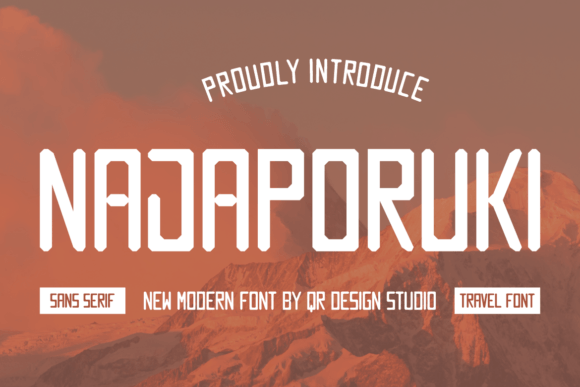
Immerse Yourself in the World of Najaporuki: A Font of Boldness and Authenticity
In the realm of typography, where fonts reign supreme, Najaporuki emerges as a beacon of boldness and authenticity. This sans serif font, meticulously crafted by qrdesignstd, is a testament to the power of visual communication, capable of transforming your designs into captivating expressions of your brand's identity.
With its strong and assertive presence, Najaporuki commands attention, leaving an indelible mark on the minds of your audience. Its confident strokes and sharp edges exude a sense of authority and determination, making it the perfect choice for logos, headlines, and other prominent design elements.
Beyond its commanding presence, Najaporuki possesses a remarkable versatility that allows it to seamlessly adapt to a wide range of branding projects. Whether you're designing for travel, sports, fashion, or any other industry, Najaporuki effortlessly blends in, enhancing your designs with its timeless appeal.
As a web designer, you understand the importance of creating a user experience that is both engaging and intuitive. Najaporuki is your ally in this endeavor, providing the perfect balance between readability and visual impact. Its carefully crafted letterforms ensure that your web applications are not only functional but also aesthetically pleasing, captivating your users with every click and scroll.
Take your designs to the next level with Najaporuki, a font that embodies boldness, authenticity, and versatility. Its ability to elevate your branding efforts is undeniable, making it a must-have tool in your design arsenal.